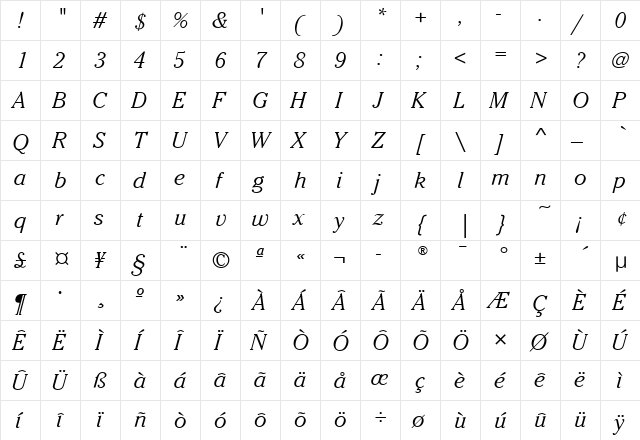
CheltenhamITC Light Italic
Design Context for CheltenhamITC Typeface
CheltenhamITC offers clean, dependable letterforms without strong stylistic allegiance, making it a practical choice for designers who need flexibility. The slanted form adds forward momentum and visual energy. Its slender proportions lend an understated elegance to any composition.